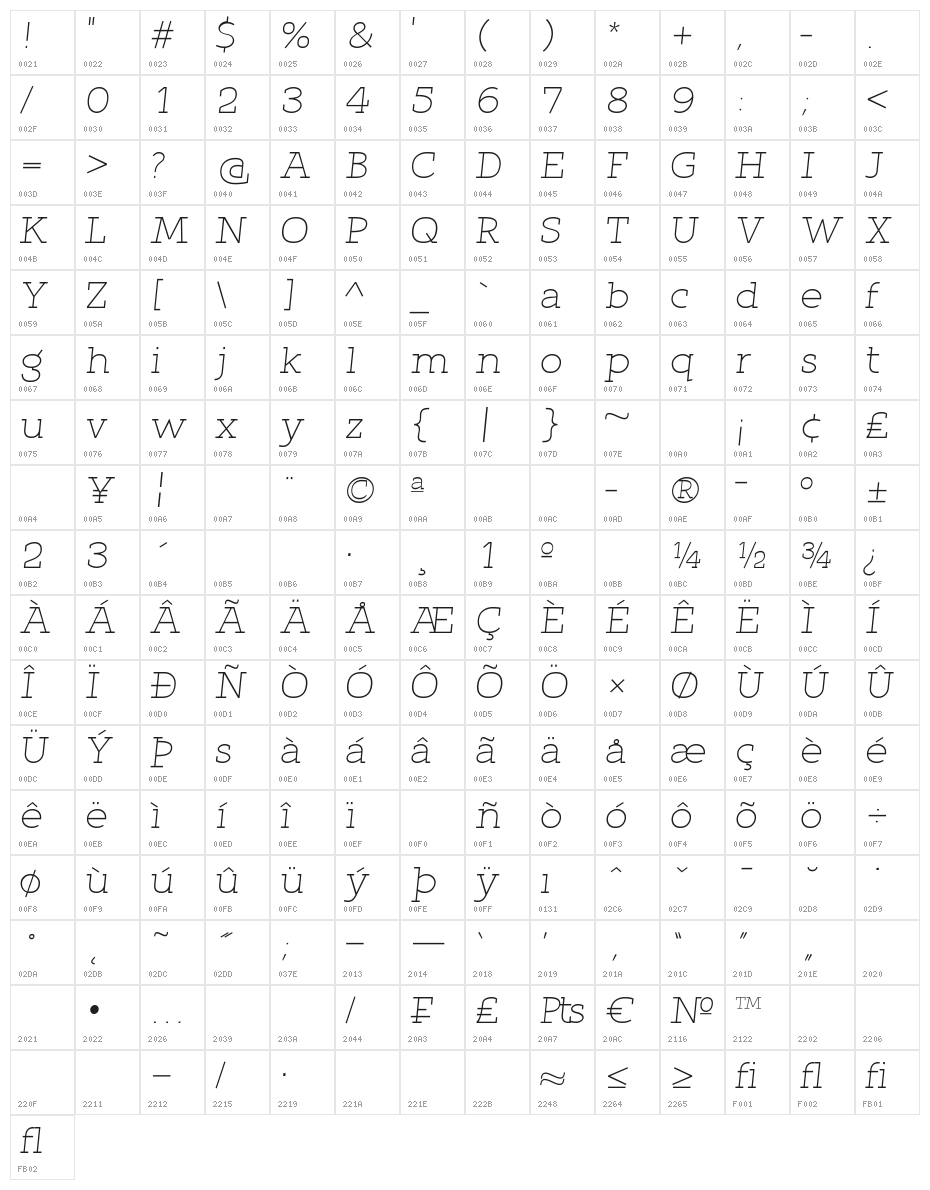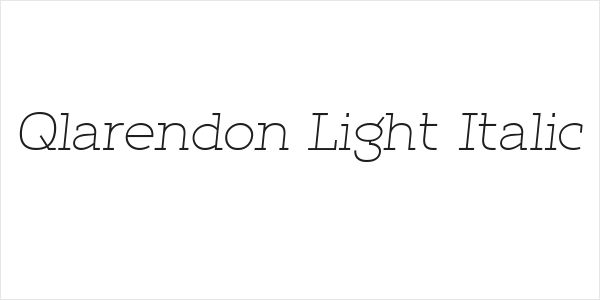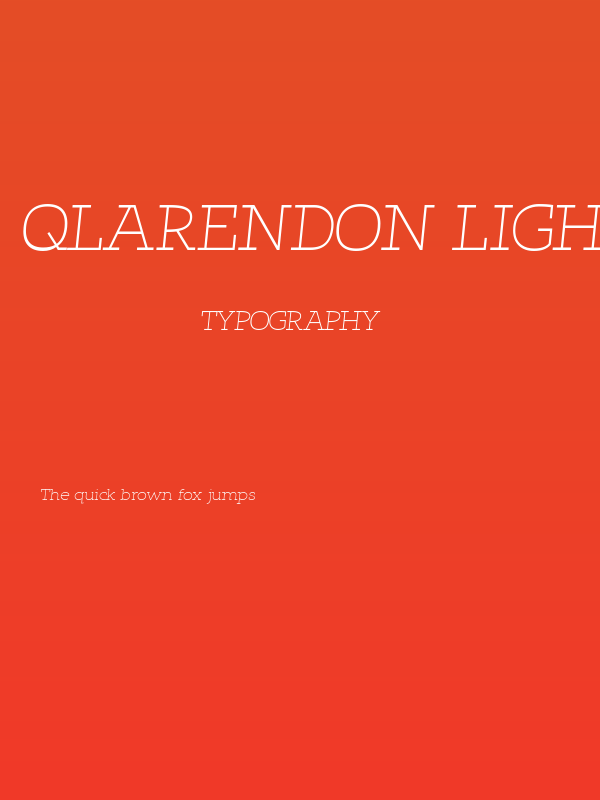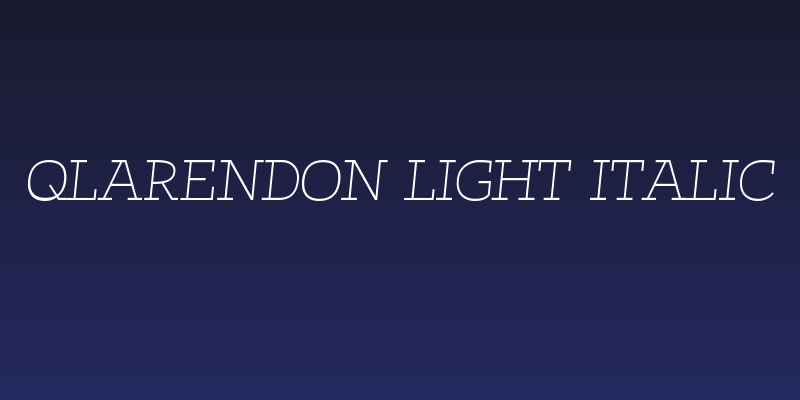
Qlarendon Light Italic Font
Qlarendon Light Italic Description
This font features a refined and elegant design with a light and airy feel. The italic style adds a sense of movement and sophistication, making it suitable for a variety of creative applications. The characters are well-proportioned with a consistent stroke width, contributing to its readability. The uppercase letters are tall and slightly condensed, while the lowercase letters maintain a smooth flow. The numerals are clear and distinct, matching the overall aesthetic of the font. Special characters are thoughtfully designed, ensuring they blend seamlessly with the rest of the typeface. This font's light weight and italic slant make it ideal for projects that require a touch of elegance and modernity.